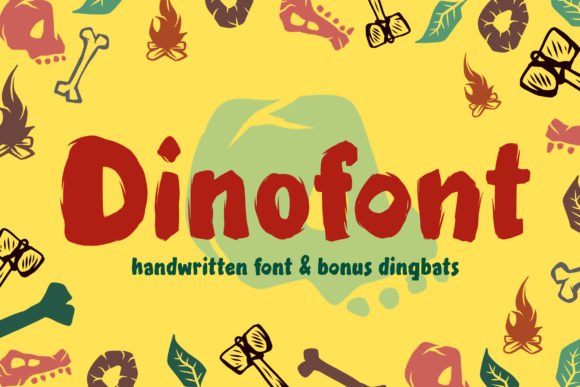
Bring Your Designs to Life with Dino Font
Who hasn’t experienced that magical moment when a child’s imagination comes alive through art? Watching them scribble away with crayons, paint, or markers, creating masterpieces that tell a story of their own. As designers, we strive to capture that same sense of wonder and creativity in our work. That’s why we’re excited to introduce you to Dino Font, a cute and colorful display font that embodies the spirit of playfulness and authenticity.
Perfect for children’s activities, school projects, and more, Dino Font is the perfect addition to your designs. Its chunky lettered style makes it a standout choice for anyone looking to add a touch of whimsy to their work. By incorporating Dino Font into your designs, you’ll notice how it brings them to life, making them more engaging and fun for your audience.
- Character Set: This font includes a wide range of characters, including uppercase and lowercase letters, numerals, punctuation, and special symbols, making it suitable for various languages.
- Unique Characteristics: The font’s distinctive, bold lines and rounded edges give it a playful, yet professional appearance, making it ideal for use in branding, advertising, and editorial design.
Dino Font Review
I recently had the chance to work with the Dino Font, and I have to say it’s an interesting choice. Here are my honest thoughts.
- Unique and playful design: The Dino Font is unlike any other font I’ve seen. Its quirky design makes it perfect for projects that need a touch of whimsy.
- Good for children’s content: The font’s friendly and approachable nature makes it well-suited for children’s books, educational materials, and other content aimed at young audiences.
- Customizable: The font can be customized to fit your project’s needs, allowing you to adjust the size, color, and other aspects to suit your design.
- Limited versatility: While the Dino Font is great for specific projects, it may not be the best choice for more formal or professional content.
- May not be suitable for all languages: The font’s unique design may not be compatible with all languages or character sets, which could lead to layout issues.
Overall, I think the Dino Font is a fun and creative choice for the right projects. While it may have some limitations, its unique design and versatility make it a great option for designers looking to add some personality to their work.
Tips for Getting the Most Out of Dino Font
For the best results, use Dino Font in bold or outline to make it stand out. You can also pair it with other fonts to create a unique and eye-catching design.
Dino Font is ideal for:
- Children’s educational materials
- Fun and playful social media posts
- Outdoor and adventure-themed designs
Alternatives to “Dino Font” for Designers
Fontin is a sans-serif font that offers a clean and modern look. It’s suitable for use in headings and titles where you want to convey a sense of simplicity and elegance. Fontin is a great alternative to Dino Font when you need a more refined and sophisticated look.
Compared to Dino Font, Fontin has a more slender and refined feel, making it ideal for use in digital media and print materials where a high level of readability is required.
Playfair Display is an elegant and luxurious script font that’s perfect for use in high-end branding and advertising materials. It’s ideal for creating a sense of sophistication and refinement in your designs. Playfair Display is a great alternative to Dino Font when you want to add a touch of luxury and elegance to your designs.